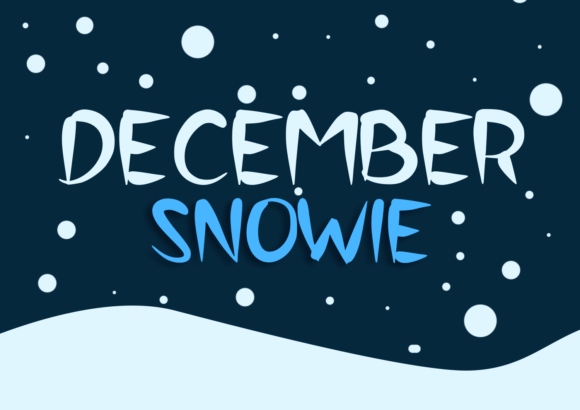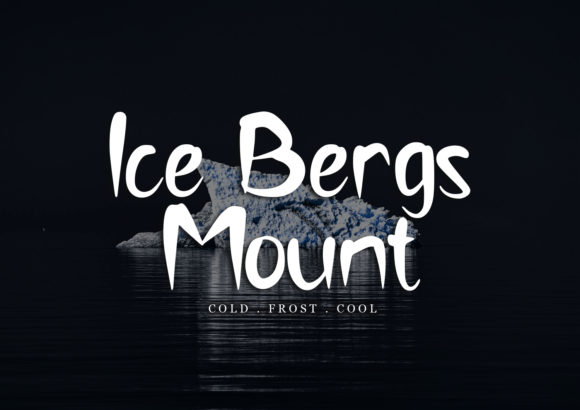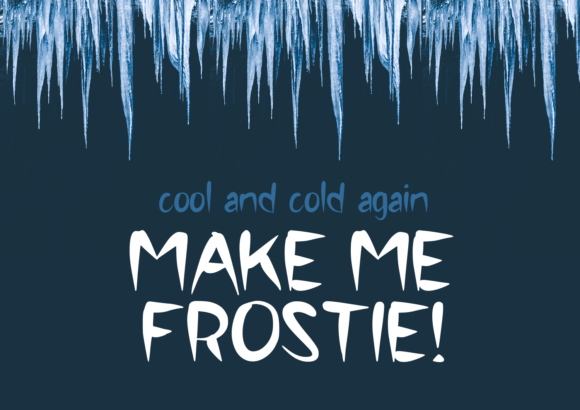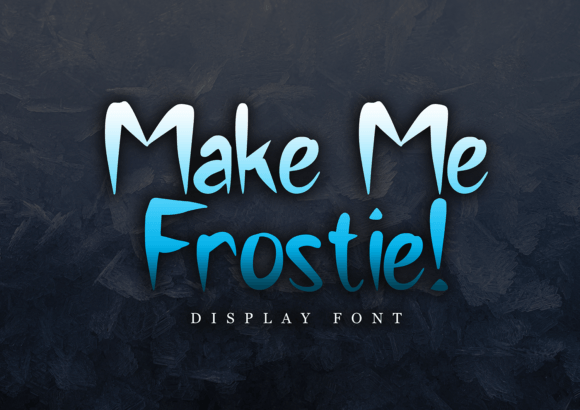
Introduction to Make Me Frostie Font
Make Me Frostie is a frosty display font.
It is inspired by diamond ice, which makes its appearance piercing cold The typeface can be used for Christmas cards, posters, apparel, stickers, or anything that needs an icy cool look.
Key Features of Make Me Frostie Font